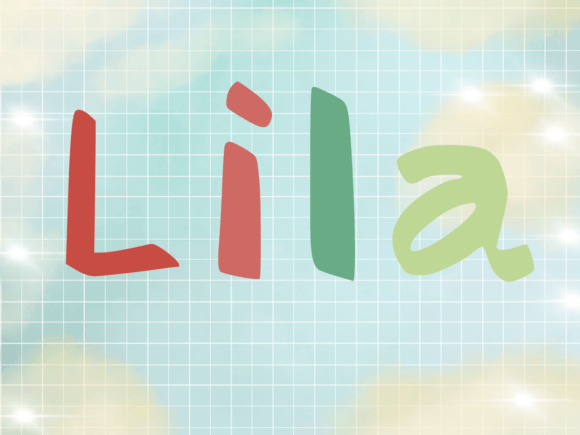
Introducing Lila Font – The Enchantress of Modern Scripts
Immerse yourself in the enigmatic world of Lila Font – an ethereal handwritten typeface that will unleash your creativity and captivate your audience. Lila embodies the essence of playful artistry, with its slightly uneven characters that dance across the page like tiny sprites. Each stroke is a testament to the free-flowing hand that guided its creation, infusing your designs with a touch of whimsy and individuality.
Lila is not merely a font – it's an invitation to embrace the unconventional and let your imagination soar. Its playful vibe is perfect for capturing the essence of joyful moments, making it an ideal choice for personalizing invitations, greeting cards, and other heartfelt creations. But Lila's versatility doesn't end there – its subtle elegance also lends itself beautifully to sophisticated projects like branding, packaging, and website design.
Whether you're a seasoned graphic designer or simply seek to add a touch of magic to your creative endeavors, Lila Font is your muse. Its stroke is smooth like flowing ink, with each character boasting a unique personality that will captivate you from the first glance.
Step into the enchanting realm of Lila Font, where creativity knows no bounds. Allow its graceful curves and playful spirit to inspire your designs, captivating your audience with every stroke.
**Key Features:**
* Handwritten script font with a playful vibe
* Slightly uneven characters for a unique and artistic touch
* Perfect for personalizing invitations, greeting cards, and other heartfelt creations
* Also suitable for branding, packaging, and website design